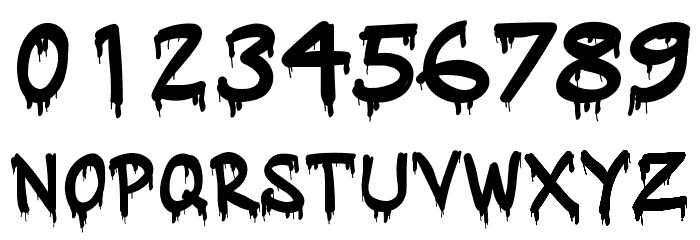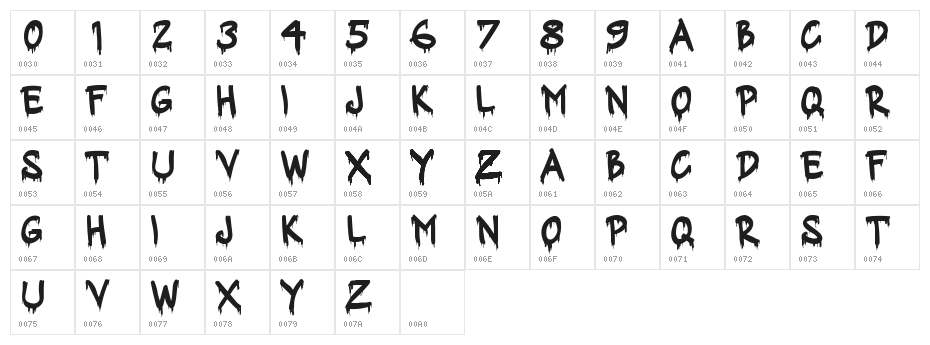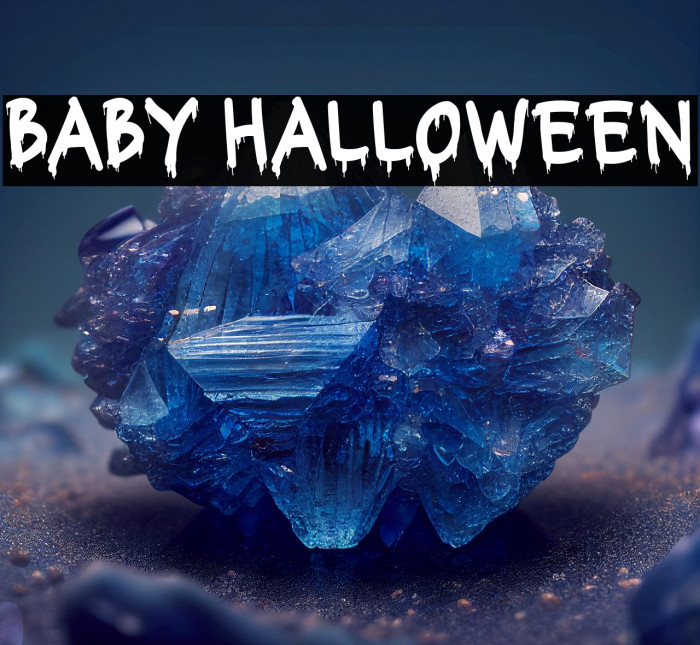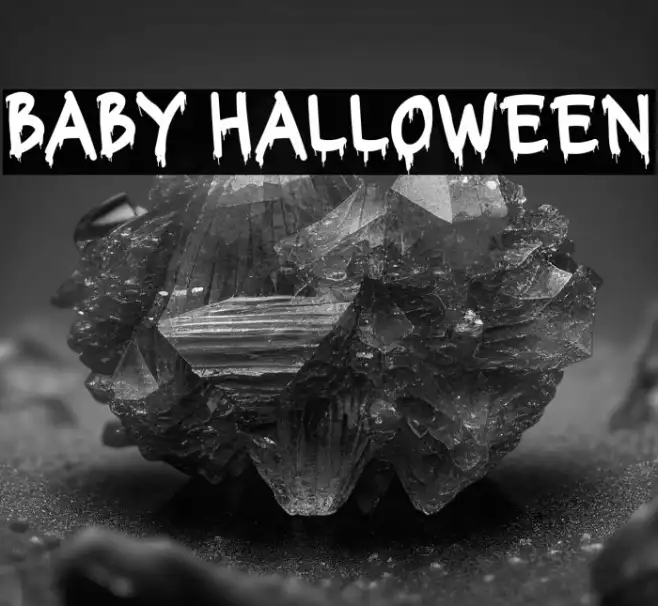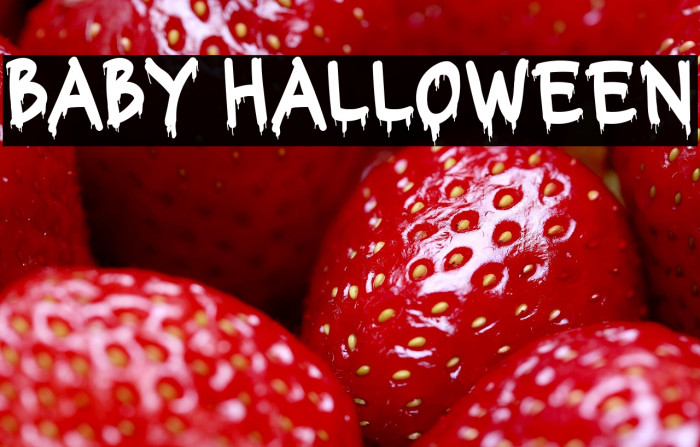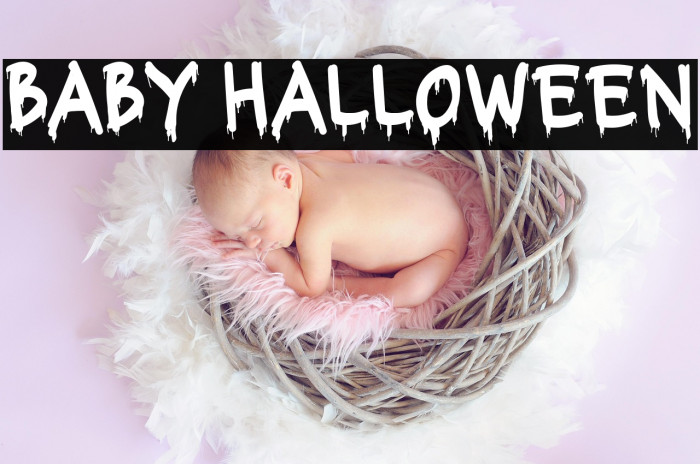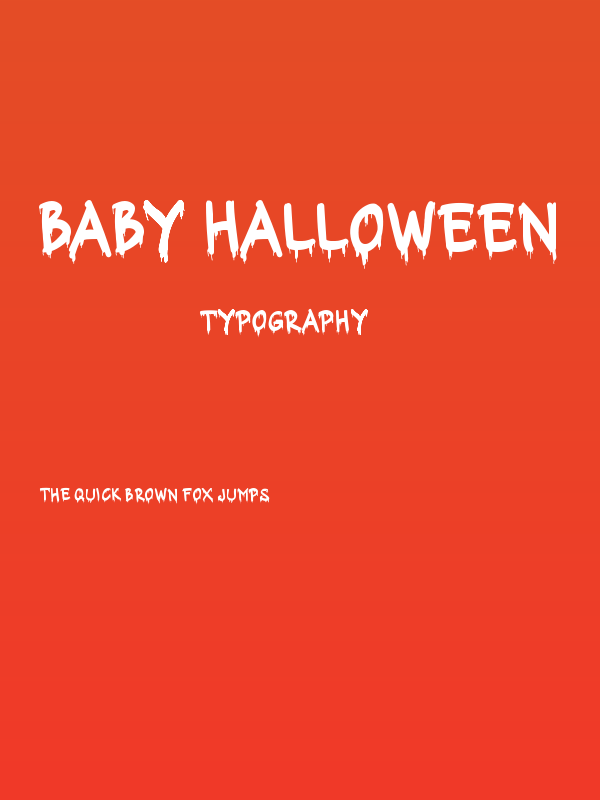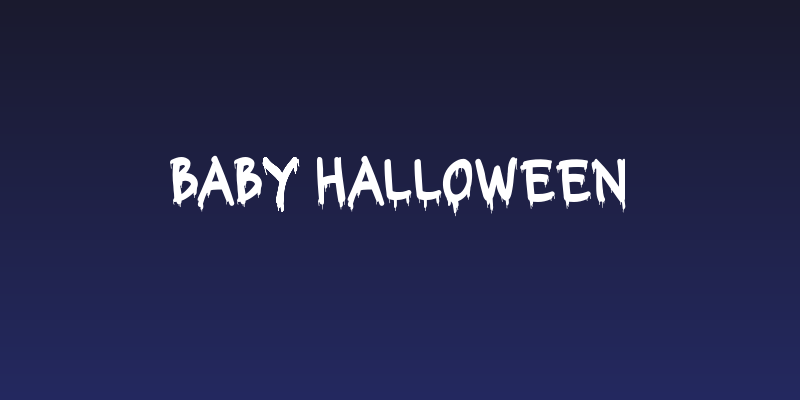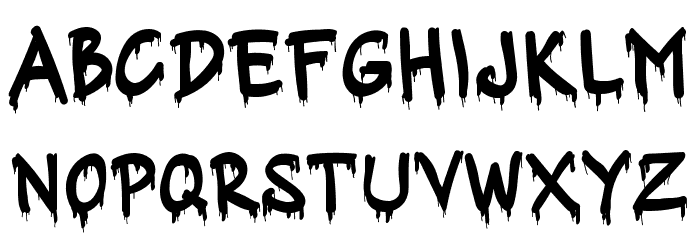
Baby Halloween Font
Baby Halloween Description
This font features a playful and spooky design, perfect for Halloween-themed projects. The letters have a dripping effect, reminiscent of melting wax or goo, which adds a sense of movement and eeriness. The bold strokes and uneven edges contribute to its distinctive, eye-catching appearance. It's designed to capture attention and evoke a sense of fun and mystery, making it ideal for festive occasions. The uppercase and lowercase letters maintain a consistent style, ensuring readability while still providing a unique flair. The numbers and special characters are crafted with the same dripping effect, ensuring a cohesive look across all elements.
| Use Case | Headlines, Posters, Invitations |
| Proposed Projects | Ideal for Halloween party invitations, themed posters, spooky event flyers, and children's Halloween books. |